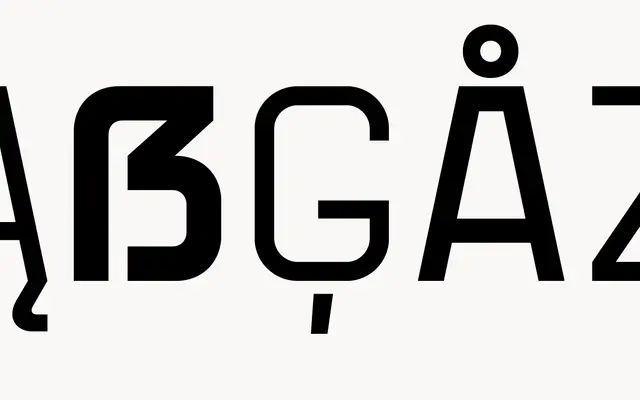
Babcock
atipo foundry · atipo foundry
A four-weight modern serif with sharp wedge serifs, drawn for editorial and brand work that wants a contemporary tone.
A modern serif by atipo foundry with sharp wedge serifs, vertical stress and a generous lowercase. The family runs through four upright weights, Regular, Medium, SemiBold and Bold, and includes pre-designed fractions, numerators, denominators, superscript, scientific inferiors and ordinals for numeric typography. Latin Extended language coverage is very wide, reaching across European, Pacific and indigenous American languages.
A modern serif with sharp wedge serifs, vertical stress and a generous lowercase. Sits between a contemporary text serif and an editorial display face.